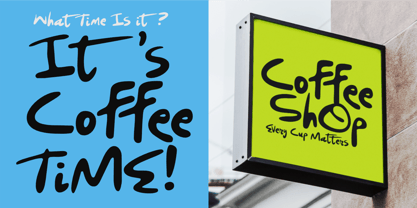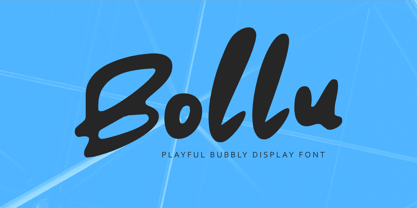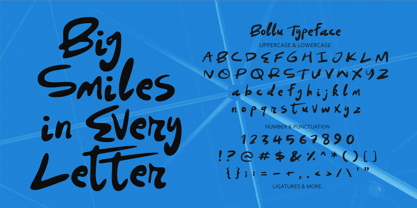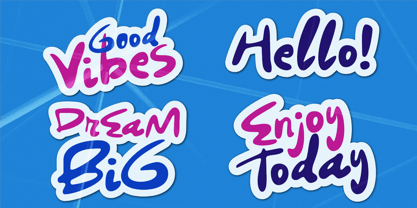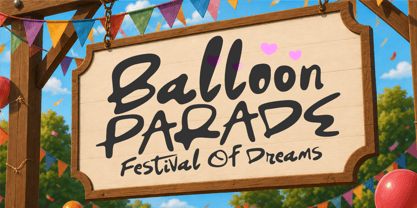
Bollu
La familia tipográfica Bollu fue diseñada por Aldy Sidik y publicada por Epiclinez. Bollu contiene 1 estilos. Más información sobre esta familia
Bollu is a fun, bold, and bubbly display font designed to bring happiness and personality to every design. Featuring soft rounded letterforms and a cheerful handcrafted style, Bollu instantly creates a friendly and approachable look that's perfect for projects aimed at children, families, and playful brands.
Its thick, smooth characters are highly readable while maintaining a whimsical charm, making Bollu an excellent choice for logos, branding, packaging, product labels, children's books, toy packaging, café menus, social media graphics, posters, greeting cards, apparel, stickers, YouTube thumbnails, and creative merchandise. Whether you're building a playful brand identity or designing colorful marketing materials, Bollu adds warmth, joy, and eye-catching appeal to every project.
Designed with versatility in mind, Bollu supports uppercase, lowercase, numbers, punctuation, multilingual characters, and OpenType features, making it easy to create expressive and memorable typography for both personal and commercial use.
Bring your ideas to life with Bollu, the playful bubble display font that makes every word feel fun, friendly, and full of smiles